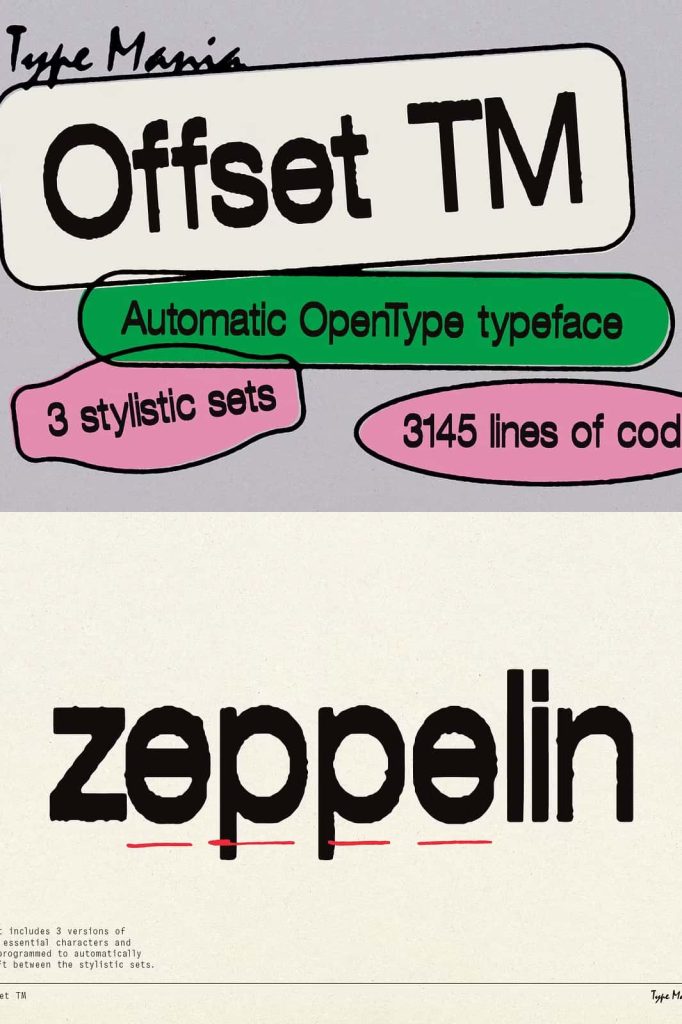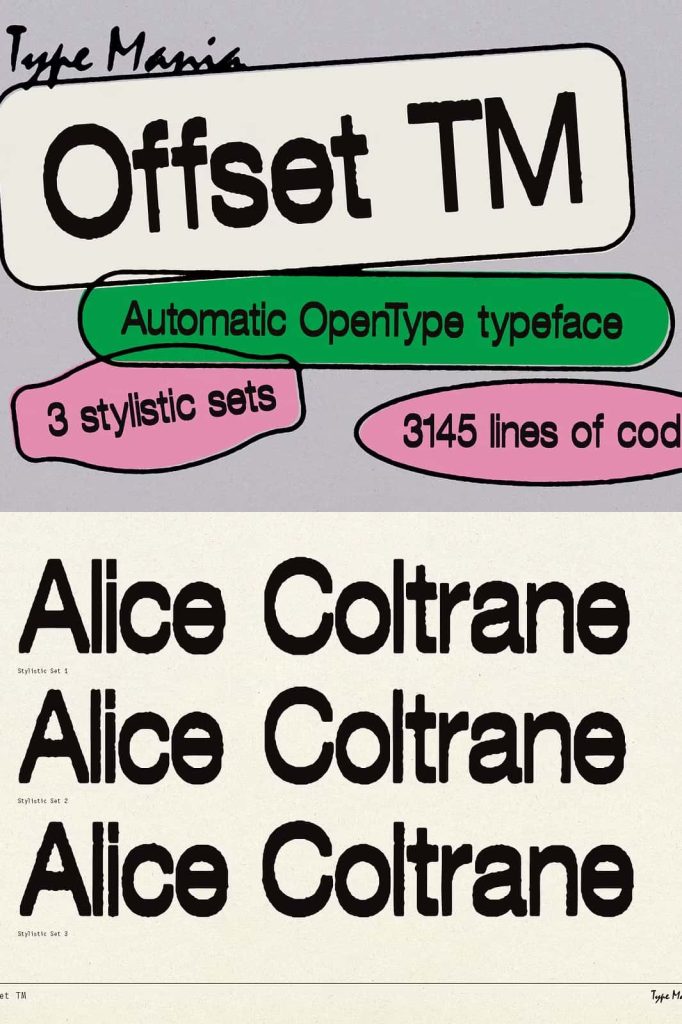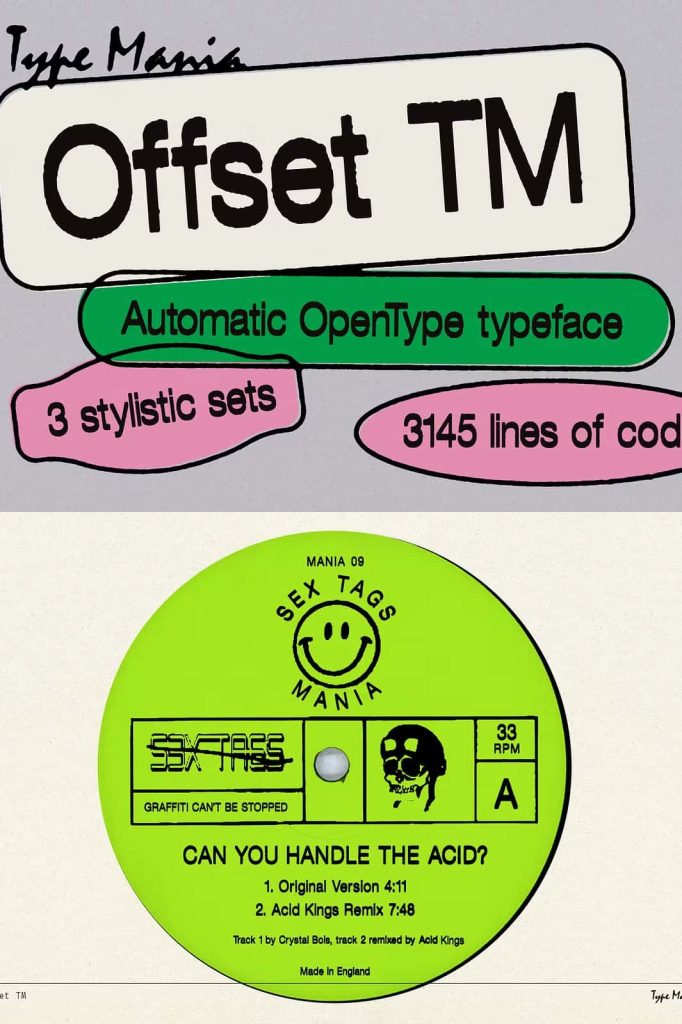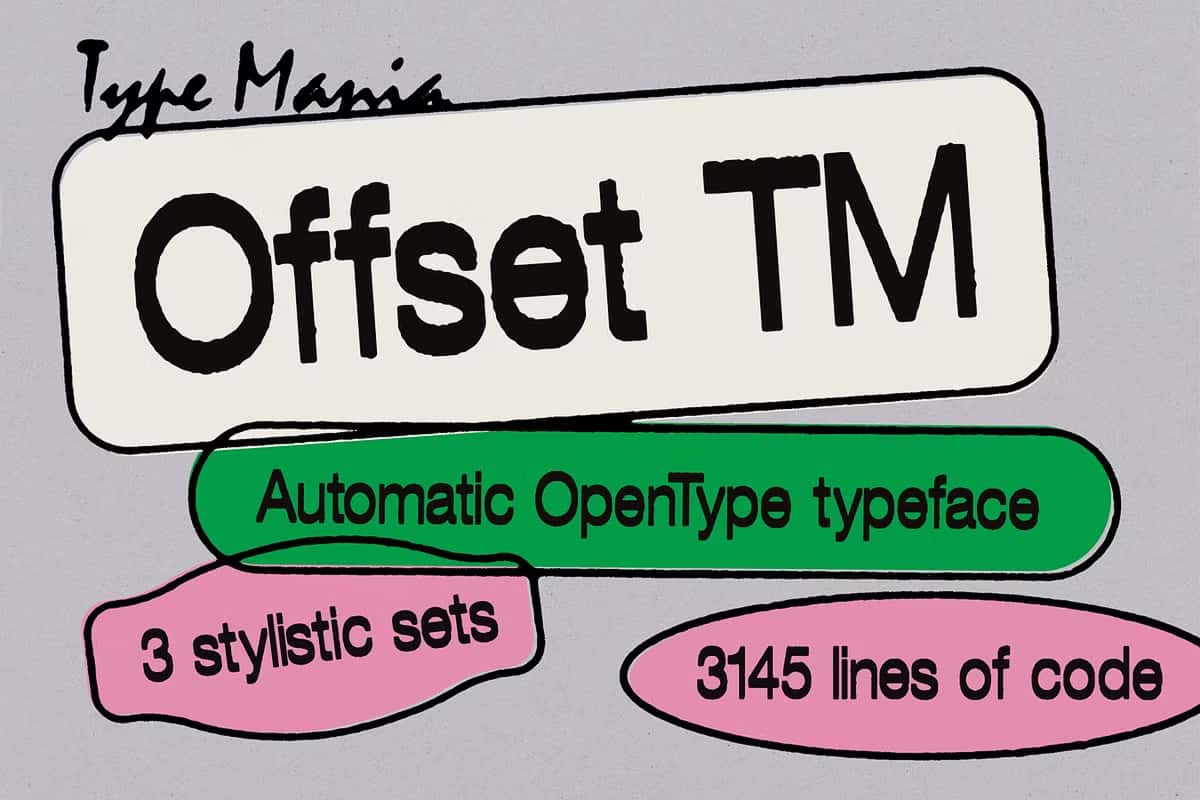
Offset TM – Distressed Dynamic Font
Offset TM Display Font: A Bold Fusion of Rugged Style and Innovation
Offset TM is a powerful display font that pushes creative boundaries through its bold structure and dynamic personality. Built with an impressive 3,145 lines of code, this typeface delivers more than just visual appeal—it introduces intelligent design features that actively enhance your workflow. Designers who want to create strong, expressive visuals will find Offset TM an essential addition to their toolkit.
Engineered for Dynamic Visual Expression
Offset TM stands out because it combines raw, rugged aesthetics with modern typographic innovation. Its structure embraces irregularity and texture, giving each letter a handcrafted and energetic feel. This approach allows designers to move away from predictable typography and create compositions that feel fresh and impactful.
The font’s dynamic nature ensures that no two layouts feel identical. It actively transforms static text into visually engaging elements, helping your design capture attention instantly. Whether you are working on branding, posters, or digital graphics, Offset TM adds a layer of intensity that elevates your message.
Smart Features That Enhance Creativity
Offset TM does more than display text—it actively contributes to the creative process. One of its most compelling features is the inclusion of three stylistic sets that automatically shuffle. This intelligent behavior introduces subtle variations in letterforms, creating a natural and organic rhythm within your typography.
Designers no longer need to manually adjust characters to achieve variation. Offset TM handles this seamlessly, allowing you to focus on composition and storytelling. The result is a more efficient workflow and a more expressive final design.
Automatic Stylistic Sets for Unique Results
The built-in stylistic sets provide multiple variations of each character. As the font automatically alternates between these styles, it generates a sense of movement and spontaneity. This feature proves especially valuable in display settings where uniqueness plays a crucial role.
• Create eye-catching headlines with natural variation
• Design branding elements that feel distinctive and memorable
• Produce posters with bold and unpredictable typography
• Enhance social media graphics with dynamic visual energy
This level of automation empowers designers to achieve professional results quickly without sacrificing creativity.
Rugged Aesthetics with Modern Precision
Offset TM balances rough textures with precise construction. While the font embraces a rugged style, it maintains strong readability and structure. This combination ensures that your designs remain clear while still expressing a bold personality.
The contrast between its raw edges and carefully engineered form creates a compelling visual tension. This tension draws the viewer’s eye and keeps them engaged, making it an excellent choice for projects that demand attention.
Versatility Across Design Applications
Although Offset TM functions primarily as a display font, it adapts well to a wide range of creative uses. Its strong visual identity makes it particularly effective in projects where typography serves as the focal point.
You can confidently use Offset TM in:
• Branding projects that require a bold and unconventional voice
• Poster designs that need strong visual impact
• Album covers and creative media artwork
• Streetwear and edgy fashion branding
• Digital content that aims to stand out in crowded spaces
Its adaptability ensures that it remains relevant across different industries and design styles.
Designed for Designers Who Demand More
Offset TM caters to designers who want more than a standard typeface. It provides tools that actively enhance creativity while maintaining a high level of visual quality. The combination of advanced coding, automatic stylistic variation, and rugged aesthetics makes it a standout choice for modern design challenges.
By integrating Offset TM into your projects, you gain access to a typeface that works with you, not just for you. It encourages experimentation and rewards bold creative decisions.
Transform Your Typography with Offset TM
Offset TM empowers you to transform ordinary text into a striking visual experience. Its innovative features and distinctive style help you communicate ideas with clarity and impact. Instead of relying on static typography, you can create designs that feel alive, expressive, and memorable.
Choose Offset TM display font to bring energy, character, and innovation into your work. With its dynamic behavior and bold aesthetic, it ensures that your designs leave a lasting impression.